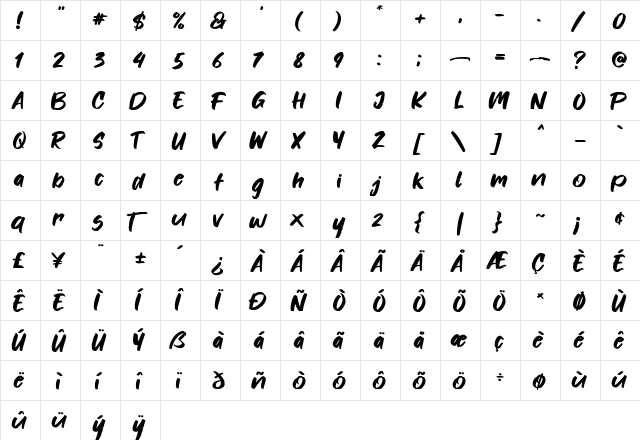
Fonters Regular Font Preview
Fonters Regular
Fonters Regular Font Details
| Foundry | Khurasan |
| Designer | Khurasan |
Design Context for Fonters Typeface
Fonters is a composed and adaptable typeface that performs quietly and consistently across a wide range of design contexts.